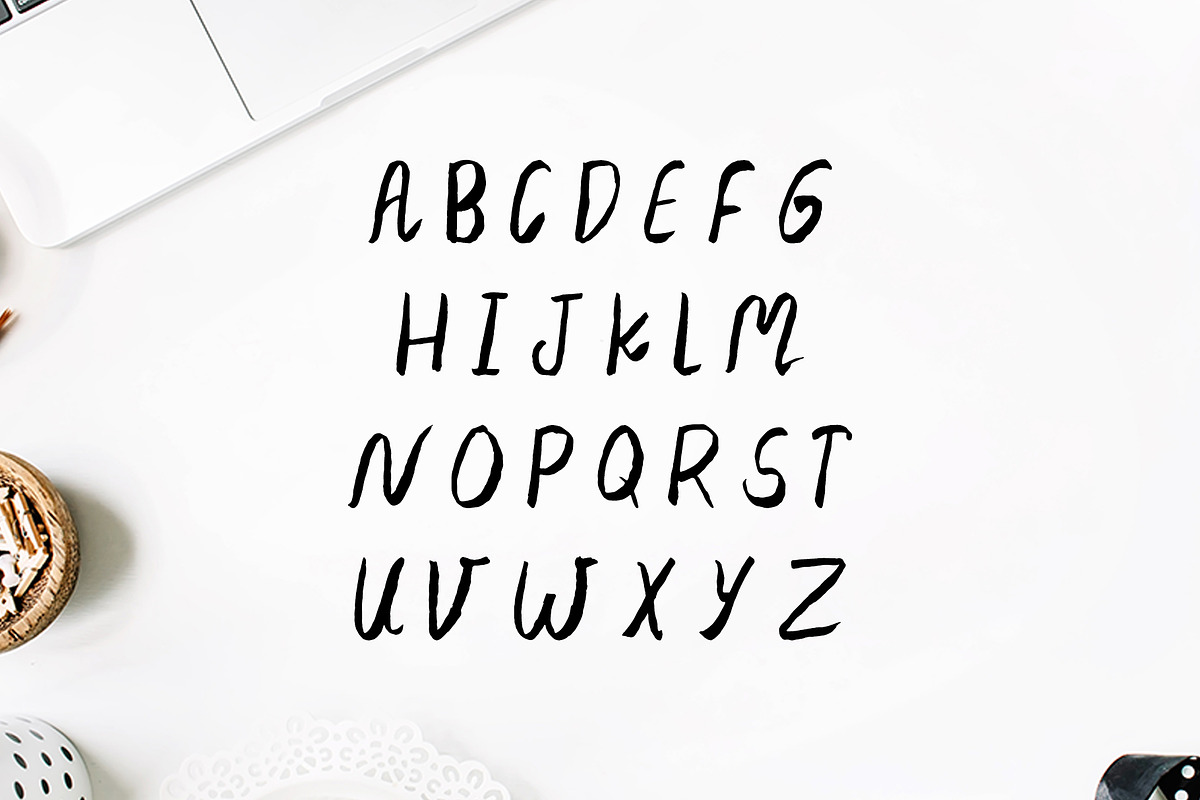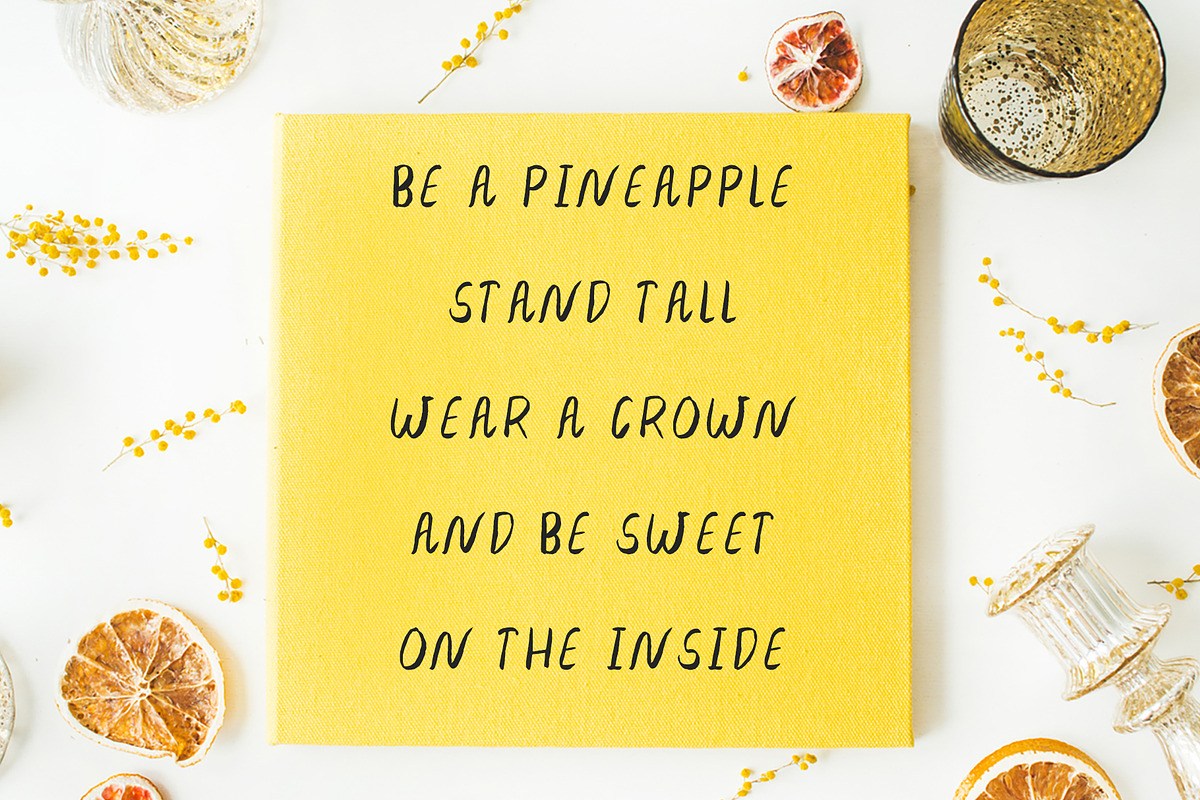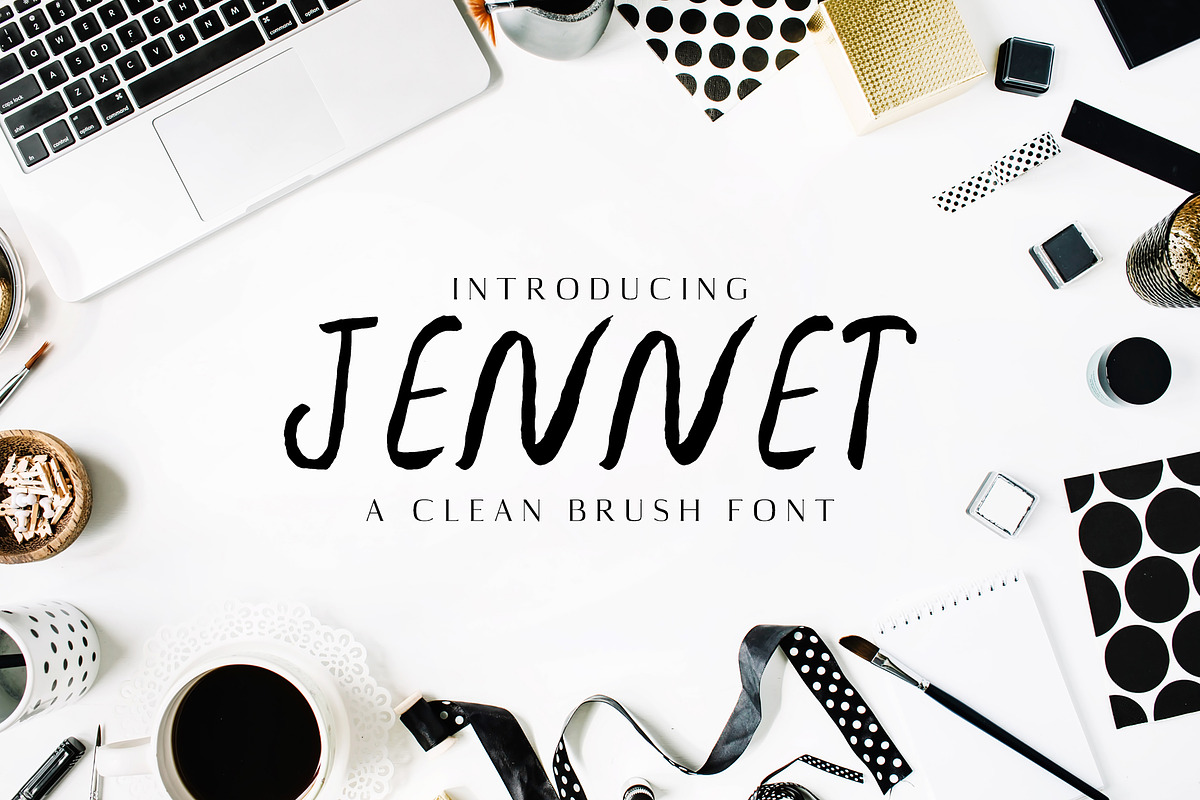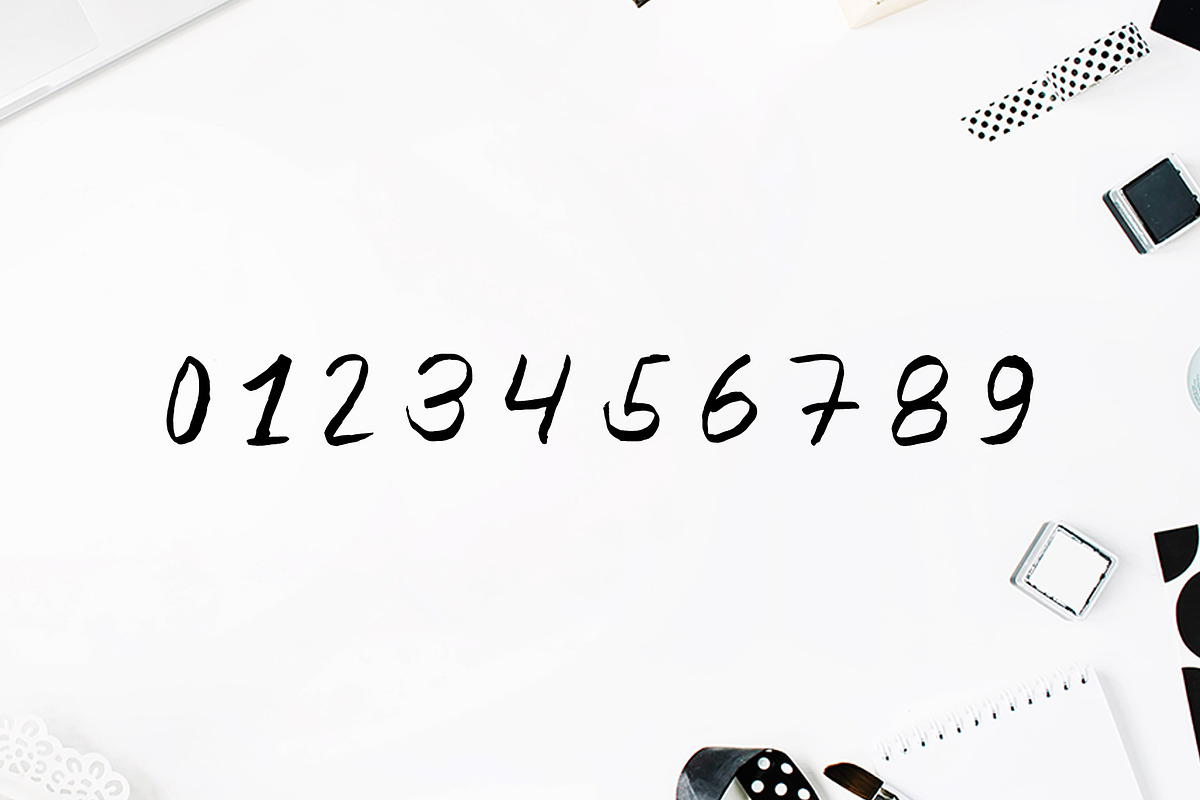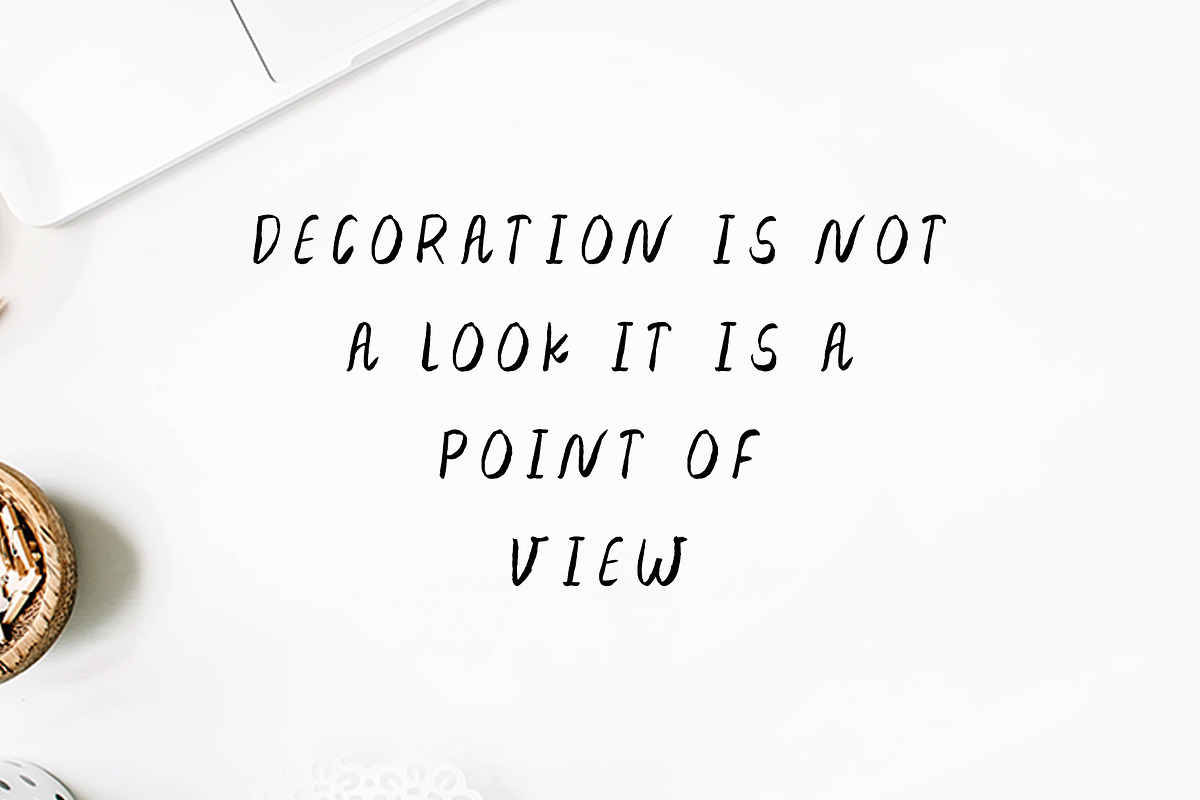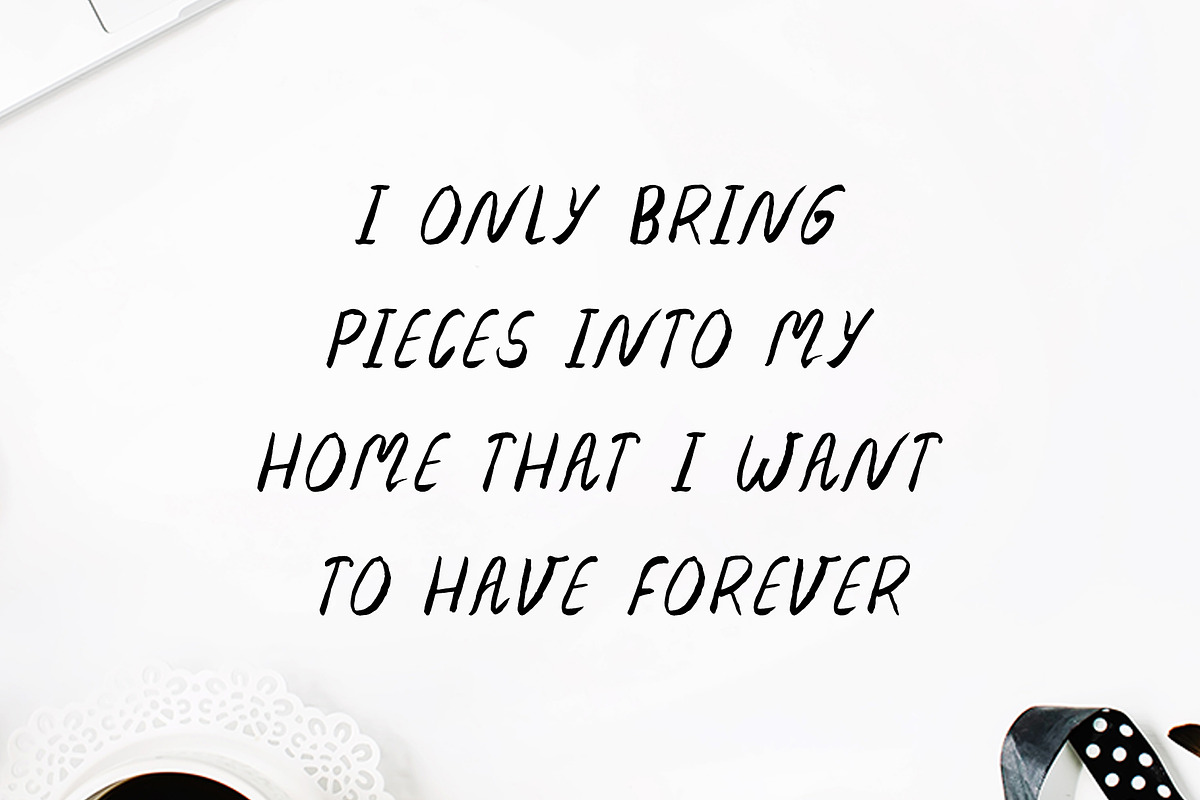
Jennet Brush 3 Font Family
Jennet Brush 3 Font Family by Creativetacos is a font selected for branding, posters, packaging, typography.
- Jannet Script Typeface is a clean & classy, beautiful handwritten brush style font that contains 3 weights, it is perfect for creating authe
- Regular, Italic and Outline Weights
- Extras: Uppercase Letters and Numbers
- Jennet Regular
- Jennet Italic
- Jennet Outline
Jennet Brush 3 Font Family by Creativetacos fits naturally into Branding, posters, packaging, typography.